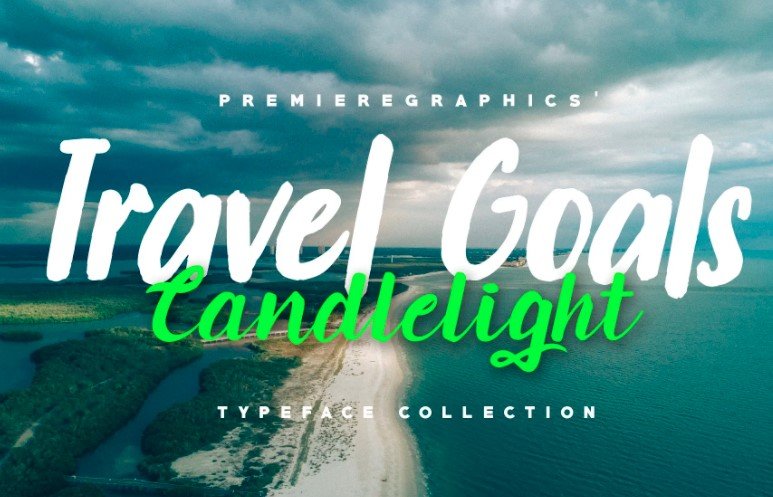
Today, we are going to share with you the great font typeface that has great fame among graphic designers as well as website designer or developer. If you want to make your projects more readable, attractive then you must have to use Travel Goals Script Font in your project for getting extra uniqueness and attractivity.
The font comes with tons of features that allow you to deliver the best design to your client. This font contains more than hundreds of beautiful glyphs, ligatures, swashes, and futuristics styles which combine together and gives you the awesome look and feel to your project.
Travel Goals can be used with the combination of amber whiskey font also supports many languages which give you the opportunity to make designs in any language that your clients wants easily and effectively.
View Of Travel Goals Script Font
Here we provide an image which includes the characters and letters of this beautiful, you can perceives it by viewing on the image and get an idea how delightful it is.
Travels Goals Font View
If you want some suggestions of a project where you want to use it, we recommend you to download and use it in making large screen designs, posters, banners, covers, advertising, resume designs, book writing, and website designing also.
Also, to increase more productivity you can also use it as pairing with the combination of krinkes script font for getting more extra features which you can utilize in making and delivering the best project to your company.